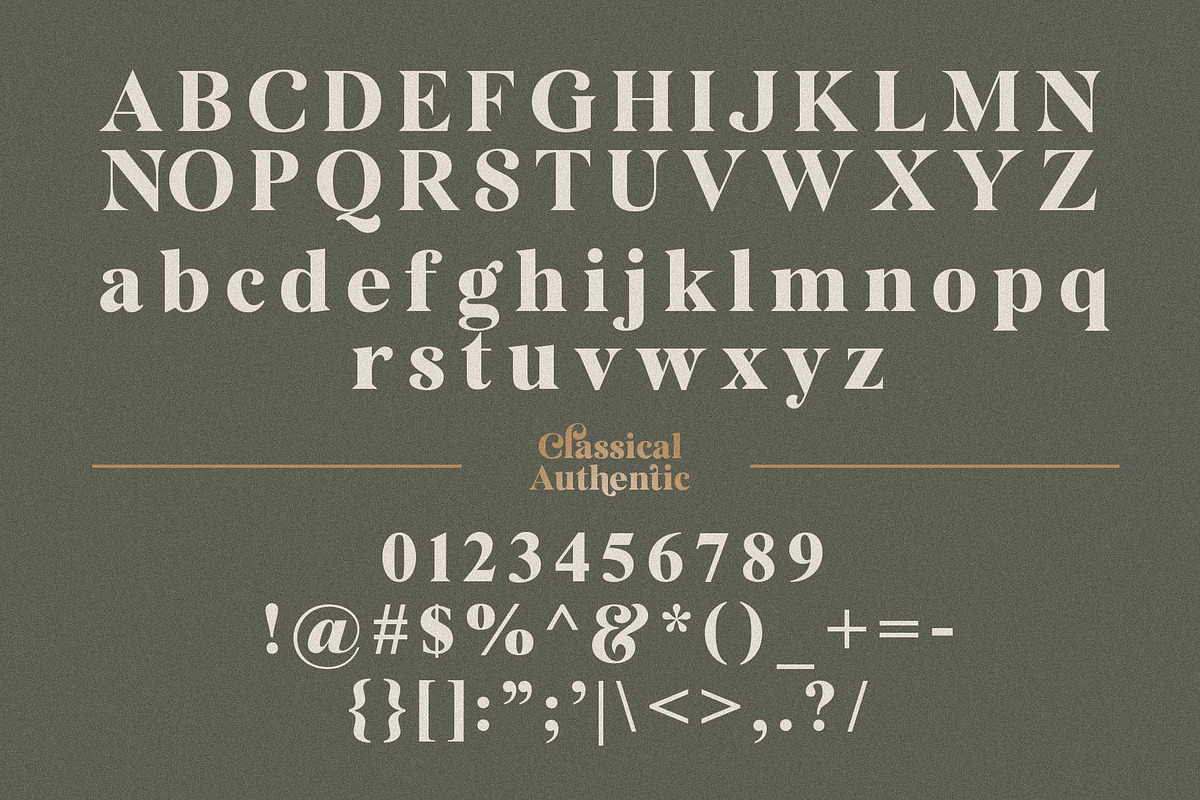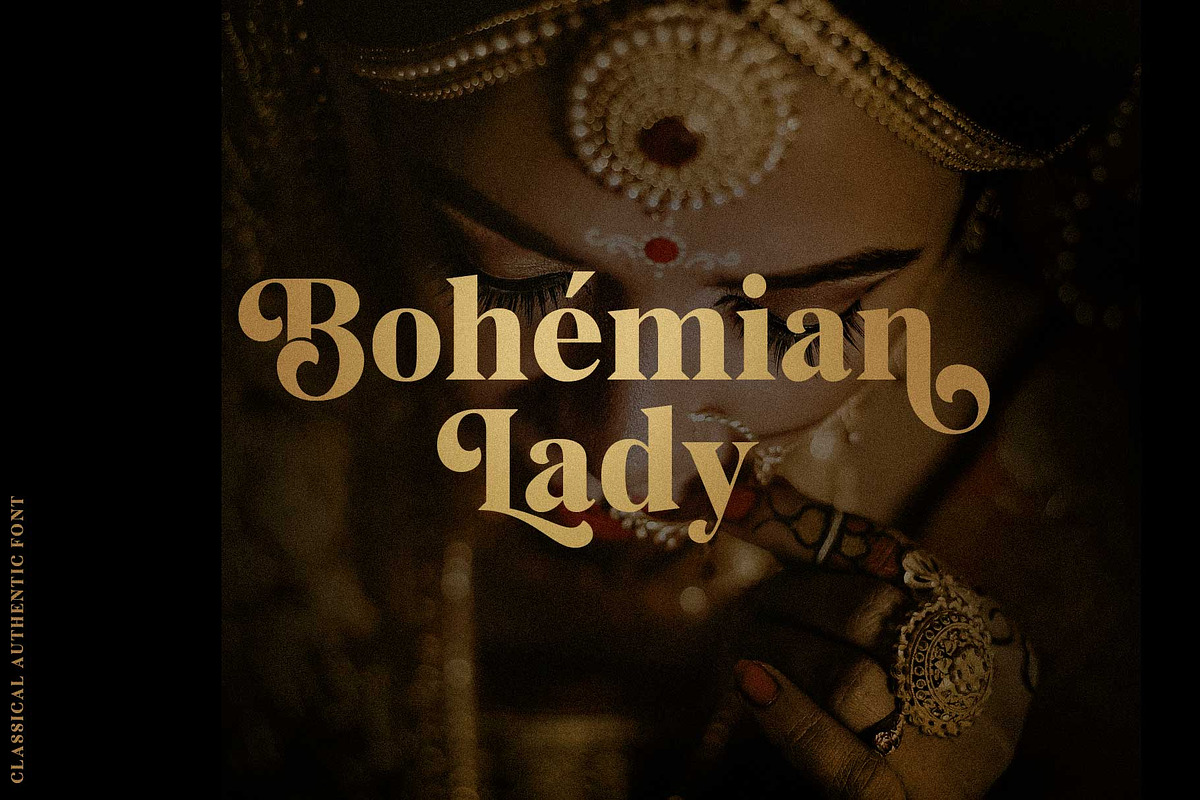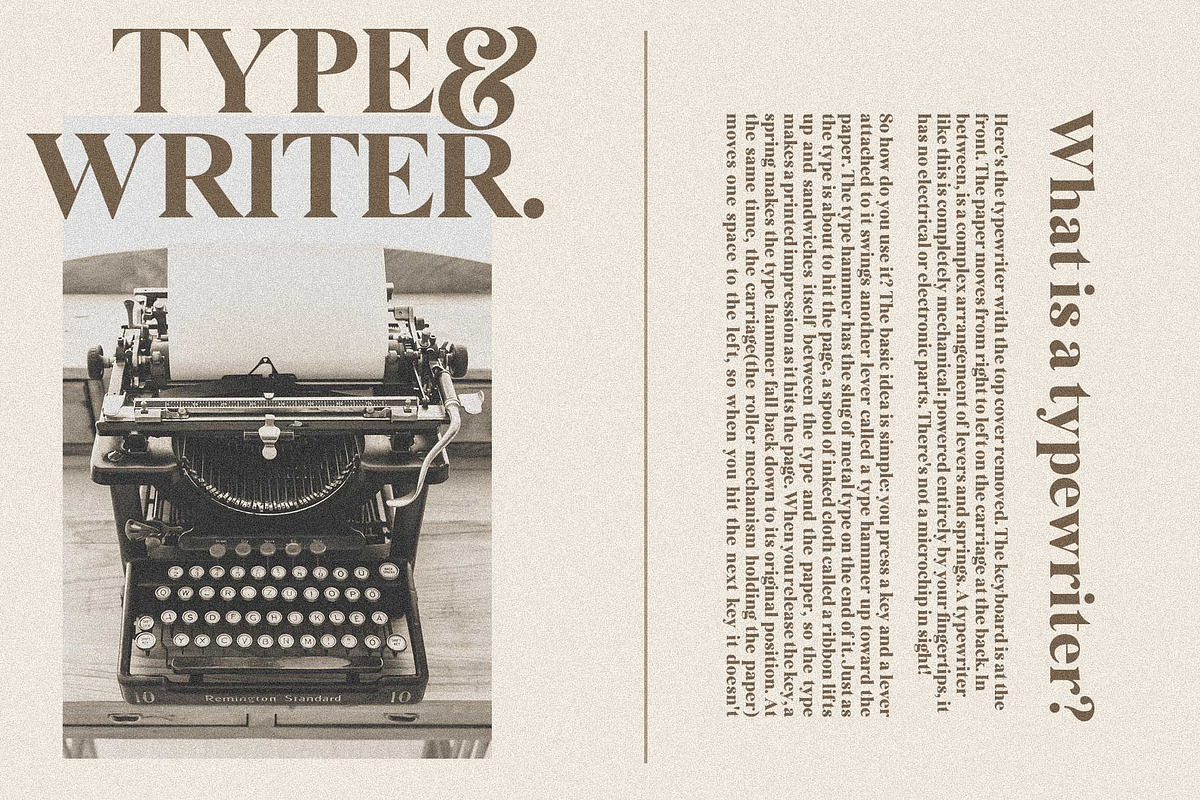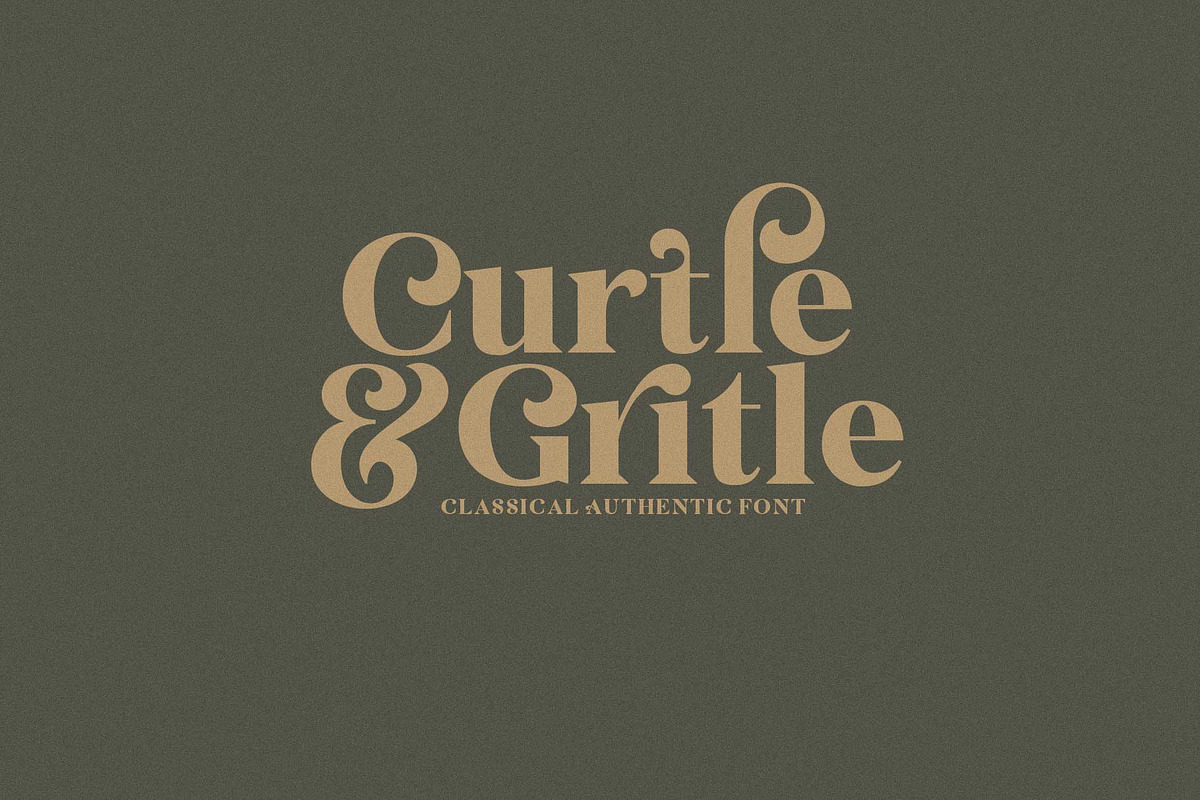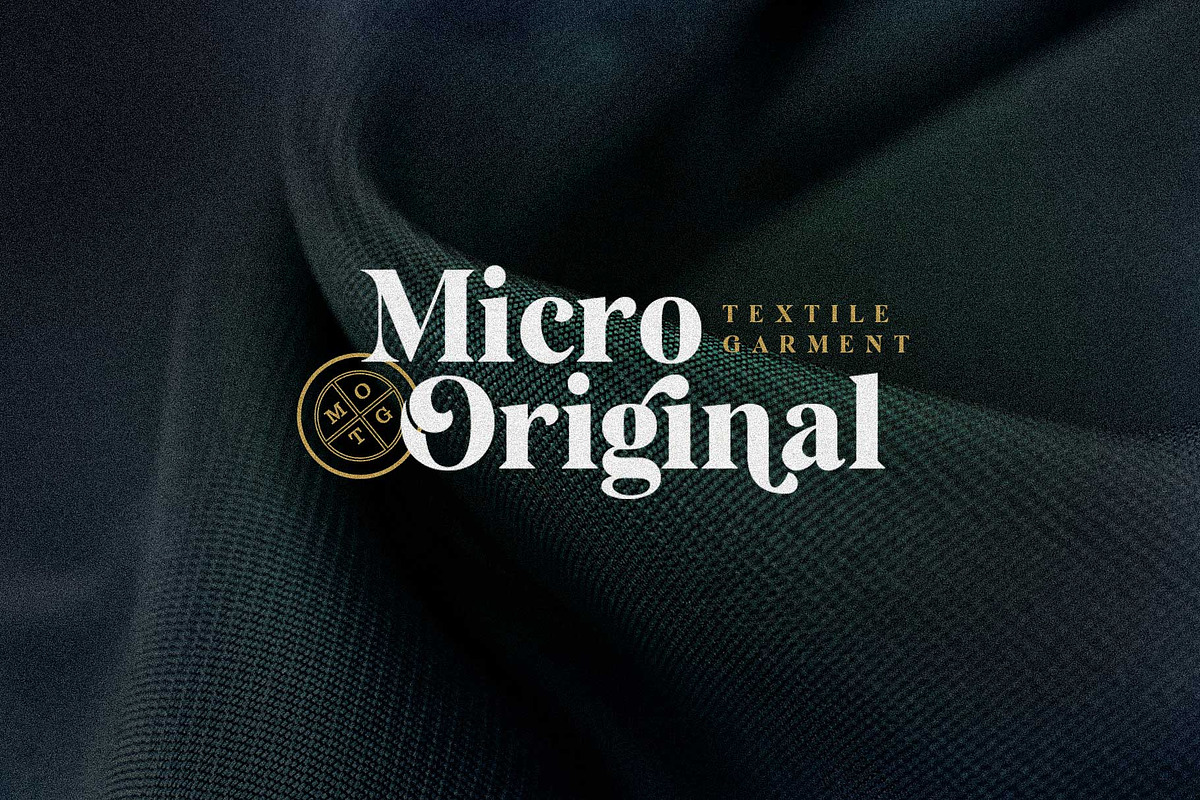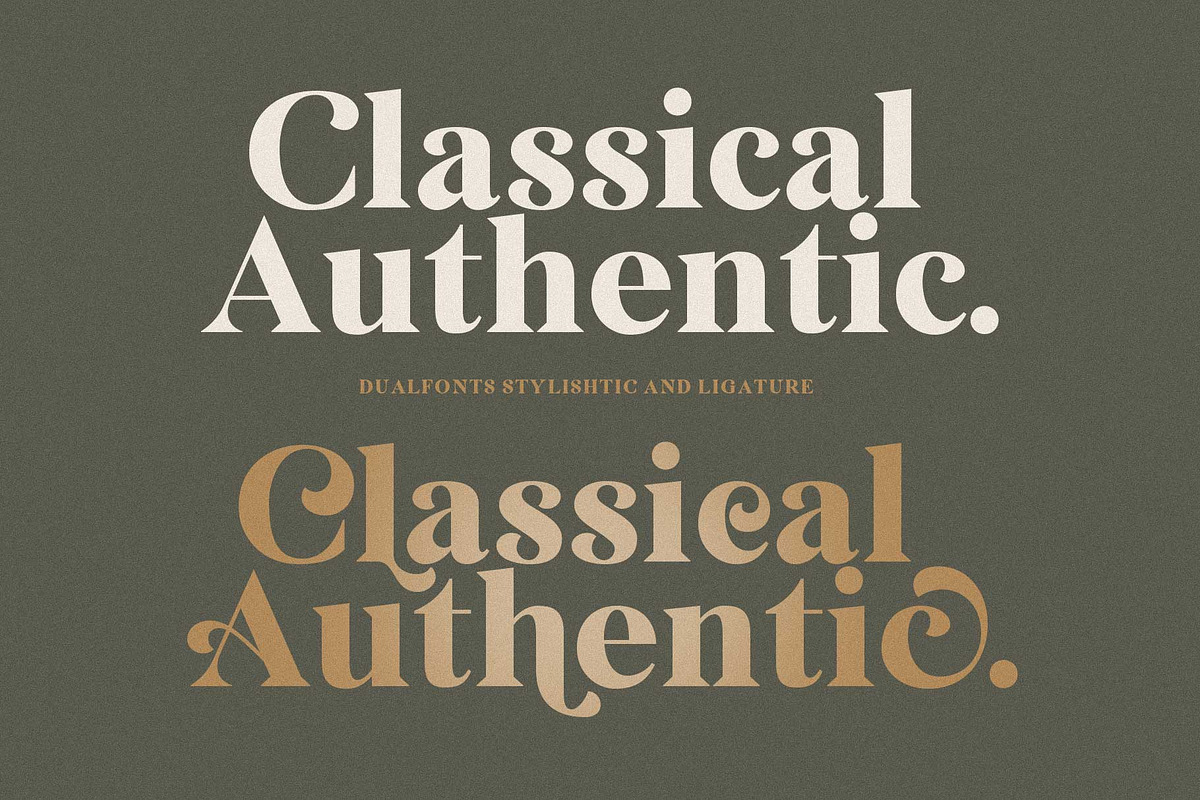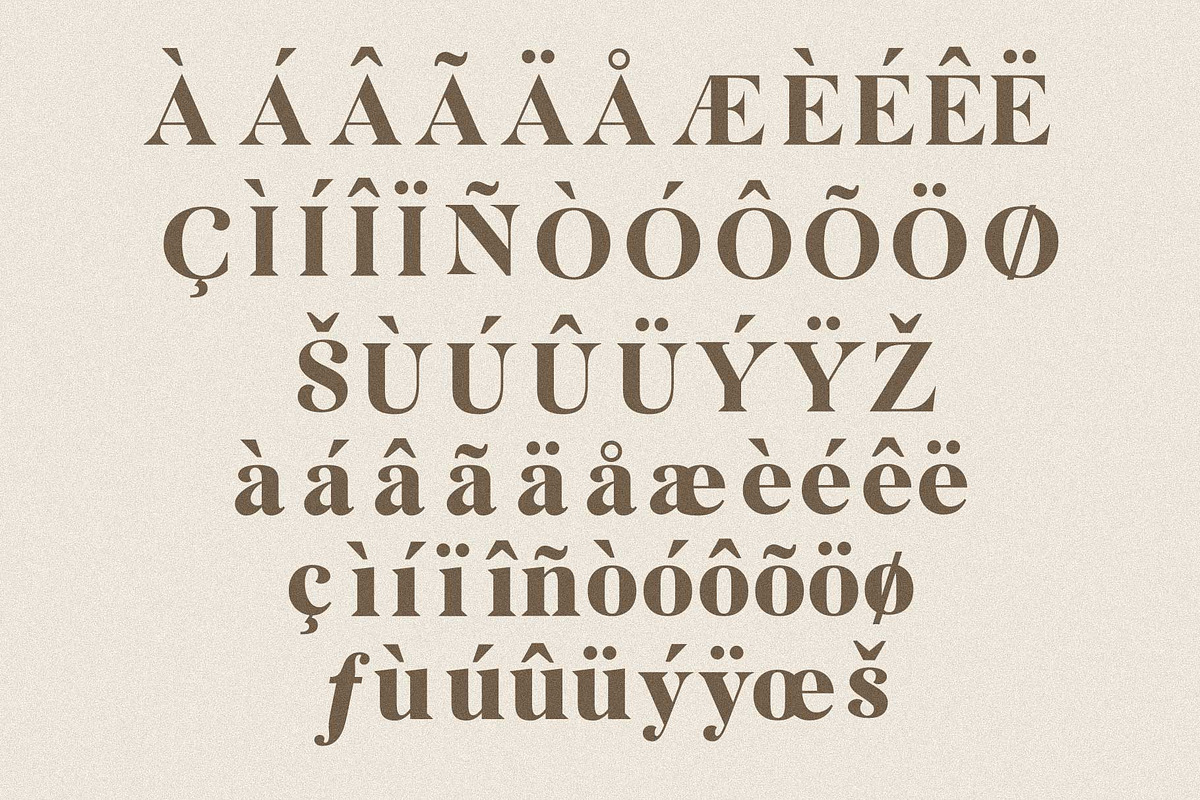
Classical Authentic Font
Hello everyone, this time our third product is "classical authentic font", this font has a stylish, classic, vintage, simple and elegant design. depending on what design you have, then this font is ready to accompany your creative fields. this is definitely useful and very helpful to add nuance to your design. very suitable for logos, posters, magazine displays or other creative fields.
This font has several additional features such as Ligature and stylishtic, You can see it in the display below. What are you waiting for, "Classical Authentic" appears at competitive prices. with guaranteed quality.